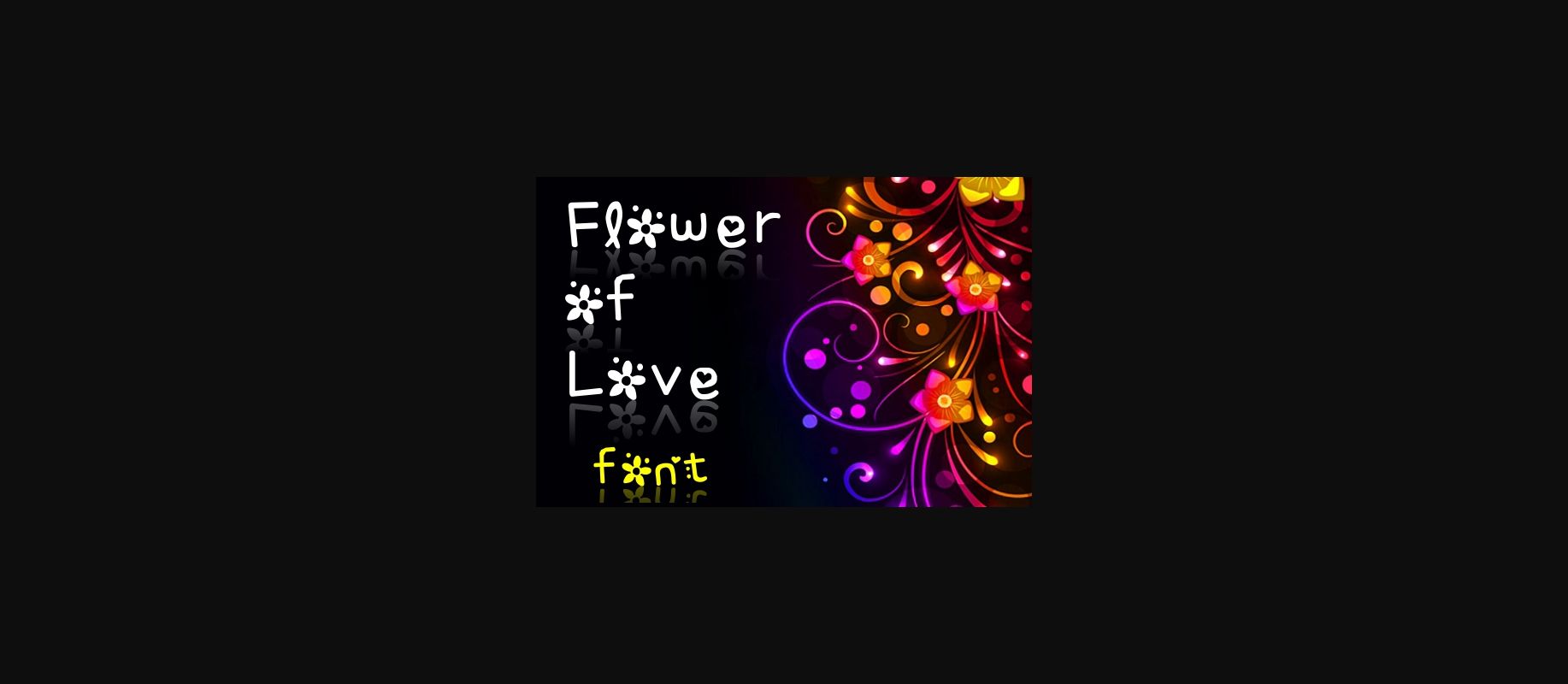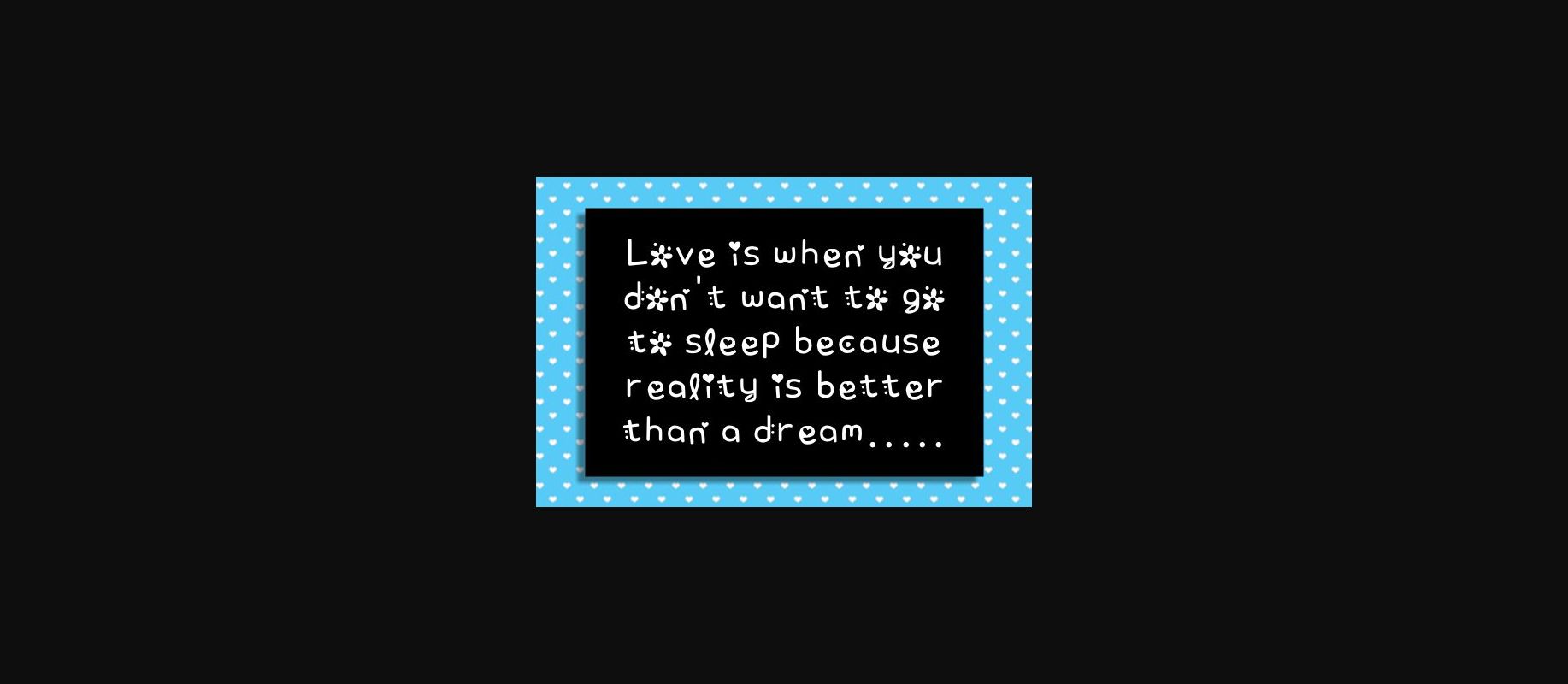
HomeDecorative FontsFlower of Love Font Decorative Fonts Flower of Love Font FacebookXPinterestWhatsApp 1 of 1 About Flower of Love Font Flower of Love is a sweet and cute decorative font. Use it to brighten up all your spring projects. DOWNLOAD ON CREATIVE FABRICAThis font is sold and delivered by Creative Fabrica. Font Canyon may earn a commission if you buy through this link. People also explored Rara Beleza Rayya and Ayla Font Gingerbread Font Flourish Font Oh Jamilah Font Kitchen Herbs Font Bone Font Love Diary Font Xenia Urshina Font 350 0 TagsFlower of Love Font Previous articleFoturest FontNext articleStaykingston Font LEAVE A REPLY Cancel reply Comment: Please enter your comment! Name:* Please enter your name here Email:* You have entered an incorrect email address! Please enter your email address here Website: Save my name, email, and website in this browser for the next time I comment. Personal Use Free Adrenaline Personal Use Free Read more about this font The Pottery Personal Use Free Read more about this font 5cent Free Graffiti Personal Use Free Read more about this font Klotee Personal Use Free Read more about this font BLOG The 10 Best Handwriting Fonts to Add Personality to Your Designs 10 of the Best Handwriting Fonts for Adding Personality to Your Designs There will undoubtedly be no other better choice than handwriting fonts to give... How to Install and Use Fonts on Windows, macOS, and Web Projects Top 10 Handwritten Fonts That Elevate Your Designs Where to Buy American Fonts Online in 2024